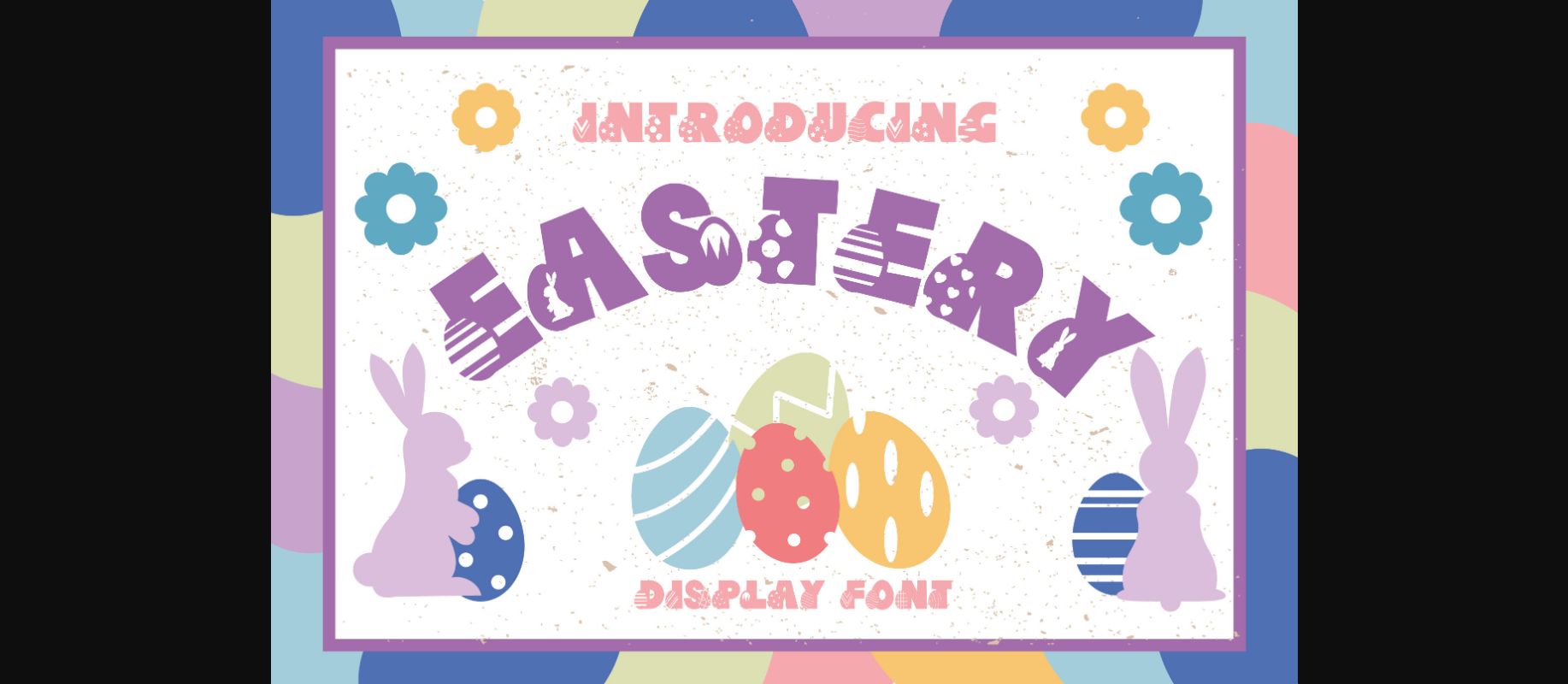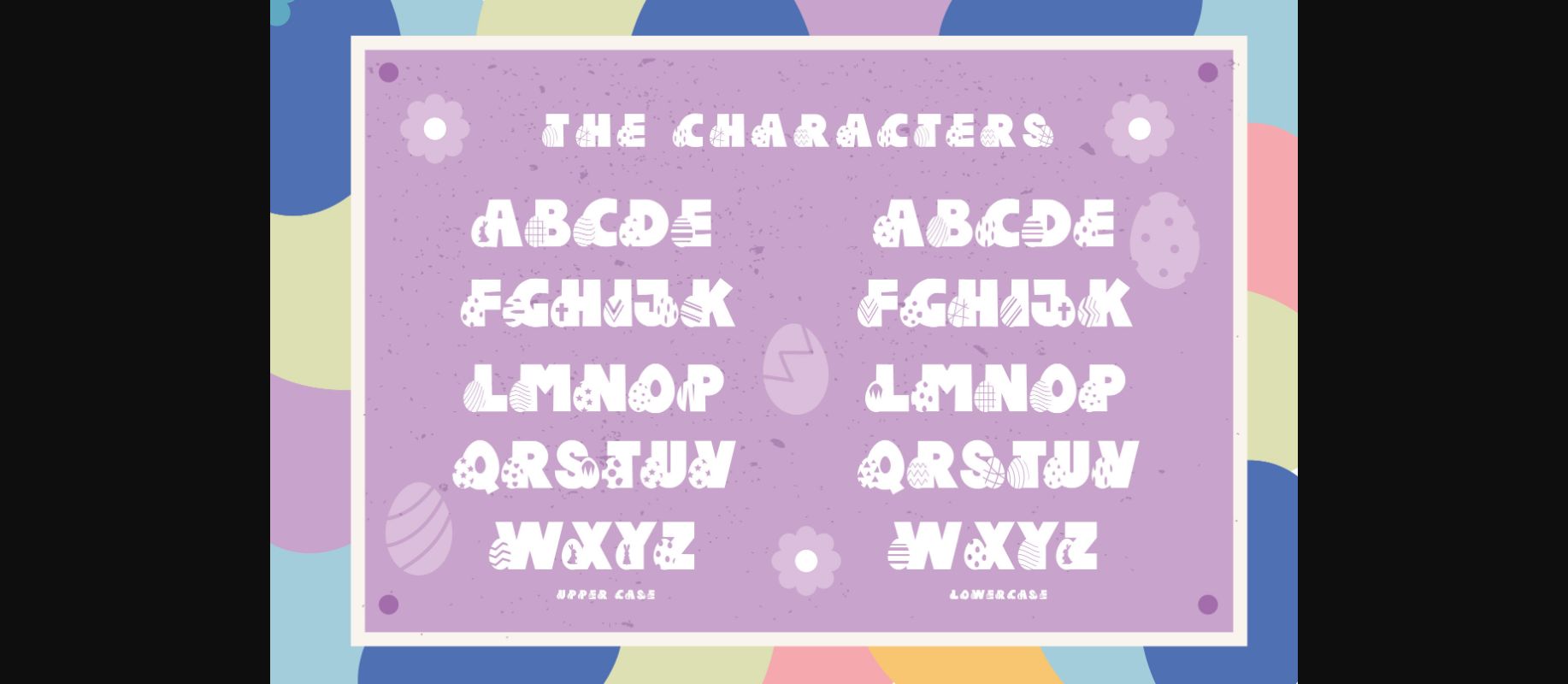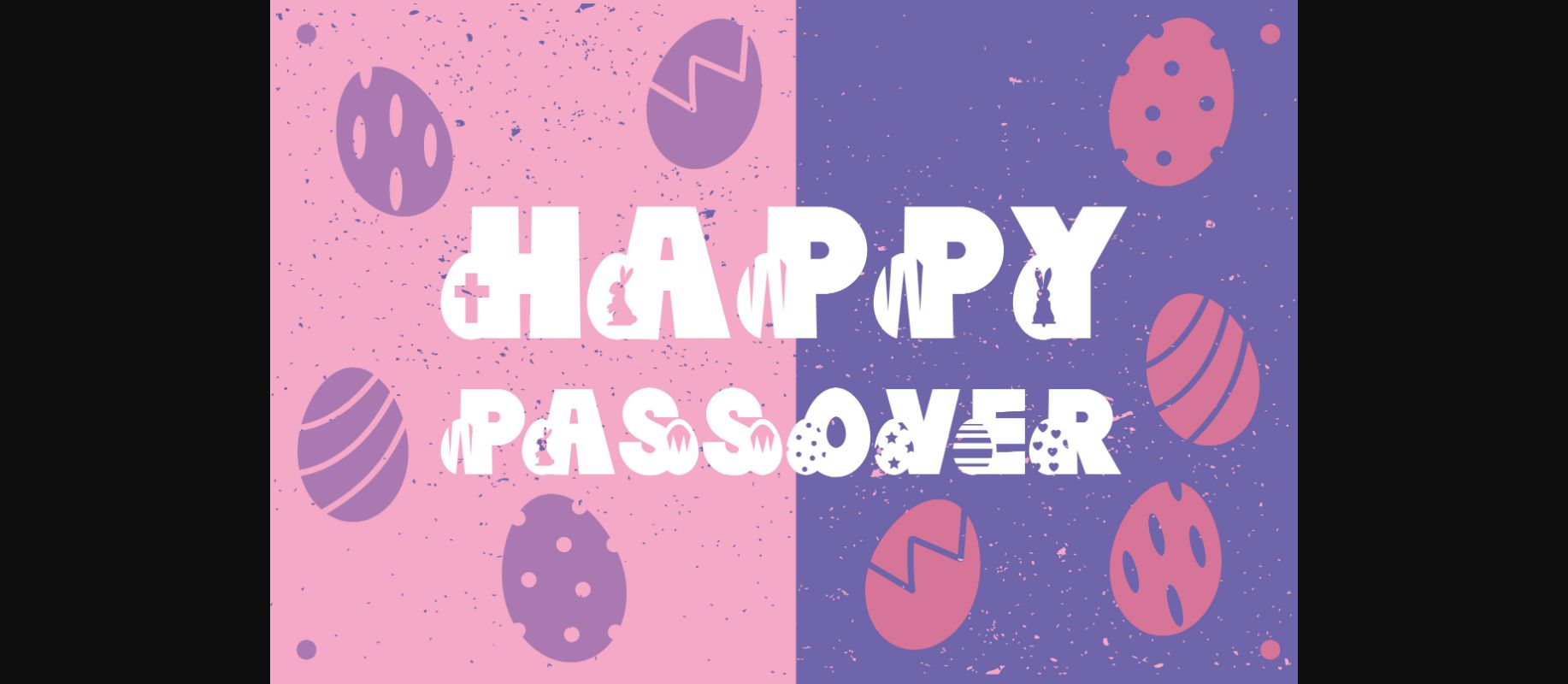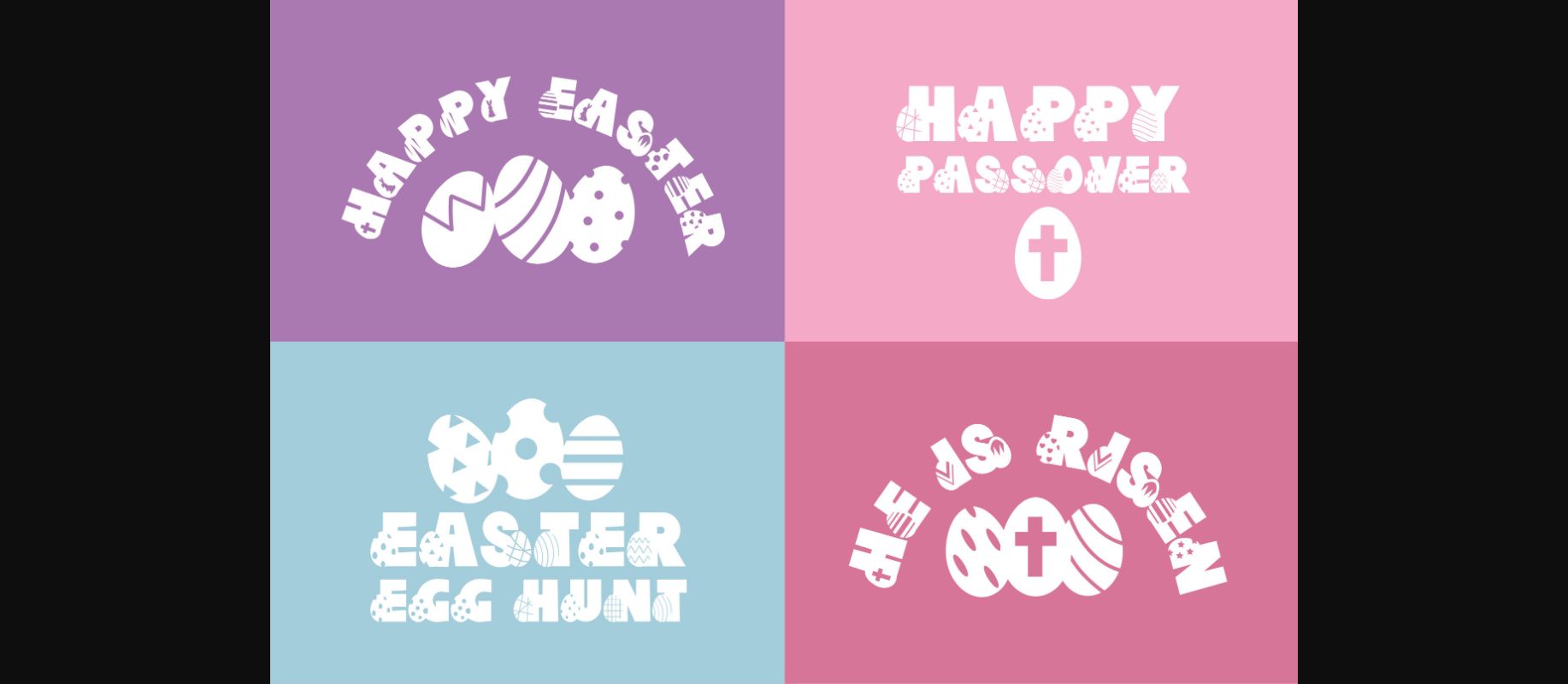
Eastery Font
About Eastery Font
Eastery is a bold, unique decorative font with an Easter theme. Make your own posters, logos, titles, and many more designs with this cute font.